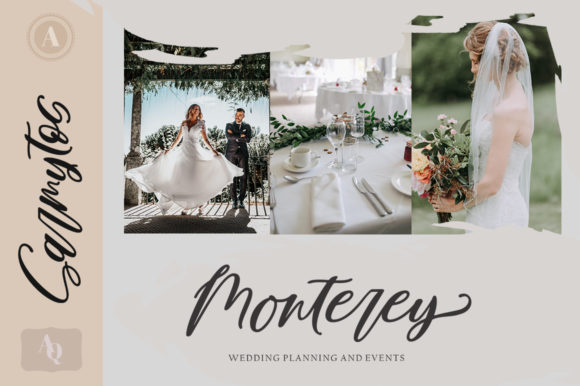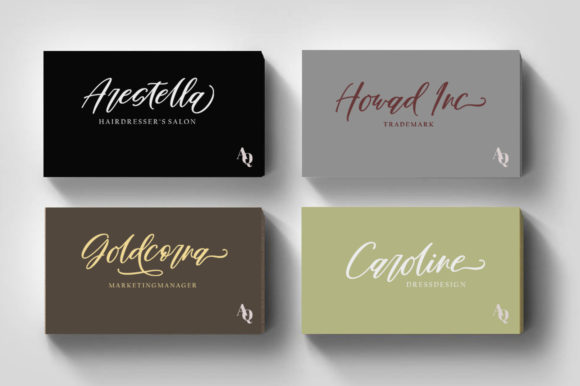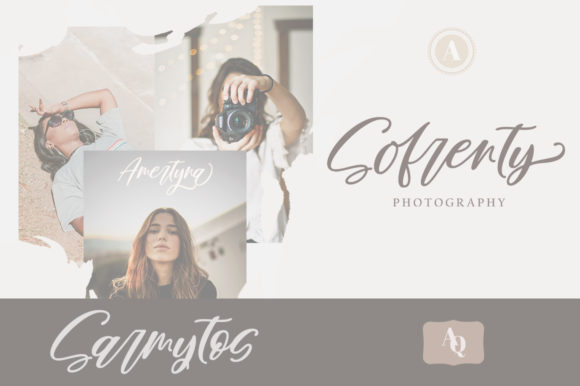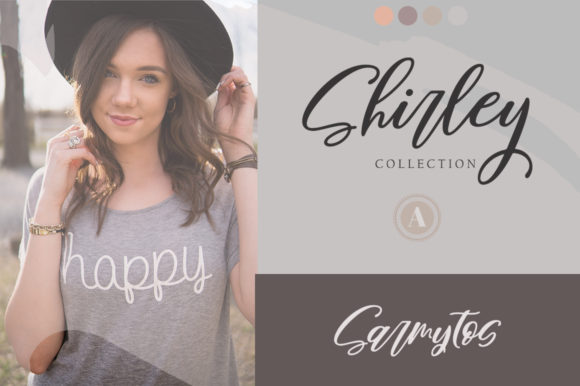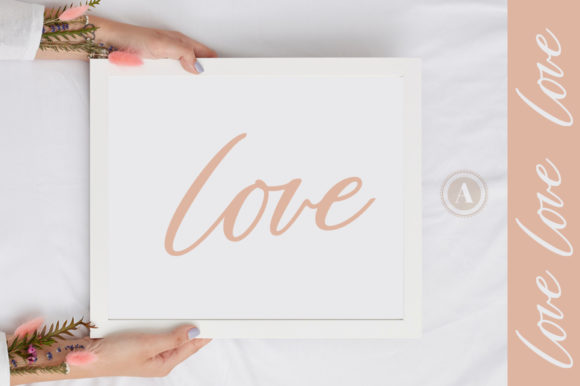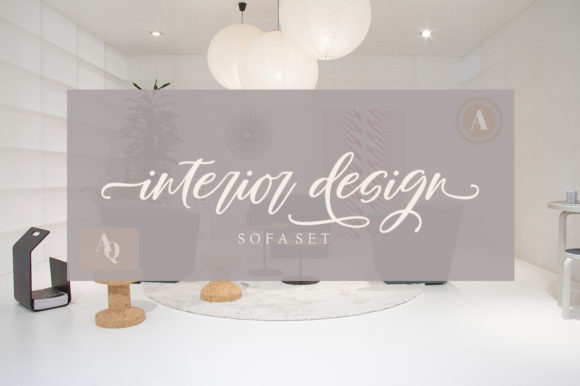
Introduction to Sarmytos Font
Have you ever stared at a blank canvas, waiting for the perfect spark to ignite your creative project? It’s a moment we’ve all experienced, and it’s precisely when we need a design resource that can elevate our ideas and make them stand out. For those seeking a unique touch, look no further than the Sarmytos Font – a modern and stylish handwritten font that exudes a bold feel.
With its high-quality design and transparent background, the Sarmytos Font is an excellent addition to any creative project. Whether you’re working on a free download or a paid design, this font will add a distinctive charm that sets your work apart. For designers, having access to a versatile and stylish font like Sarmytos Font can be a game-changer, offering endless possibilities for creative expression and experimentation.
- Designed with a unique, eye-catching style, making it perfect for adding a touch of personality to any project.
Honest Review: Sarmytos Font
I recently had the opportunity to work with the Sarmytos Font, and I must say, it’s been a game-changer for my creative projects. This free download is truly a high-quality design resource that elevates any text-based element.
Here’s what I love about the Sarmytos Font: ✨ It’s incredibly versatile, suitable for a wide range of creative projects, from branding to editorial content. ✨ The font’s sleek design and modern feel make it perfect for showcasing your work. ✨ Plus, the transparent background option allows for seamless integration with any background image or color.
However, there are a few limitations to consider: ⚠️ The font family is relatively small, which might limit its use in more extensive text-based projects. ⚠️ Additionally, some users may find the font’s modern aesthetic too bold or overpowering for more subtle designs.
Overall, I’m thoroughly impressed with the Sarmytos Font. Its high quality, flexibility, and transparent background make it an excellent design resource for any creative project. If you’re looking for a reliable font to elevate your work, I highly recommend giving it a try.
- Perfect for branding, editorial content, and more
The Sarmytos Font is a versatile design resource that can be used in a variety of creative projects, including logos, business cards, brochures, and social media graphics. Its high-quality design and transparent background make it perfect for designing with a clear or gradient background.